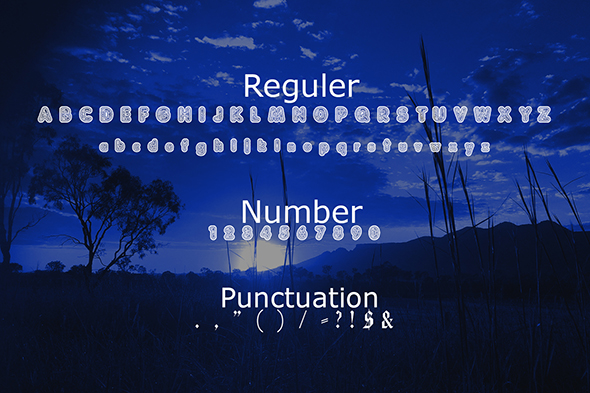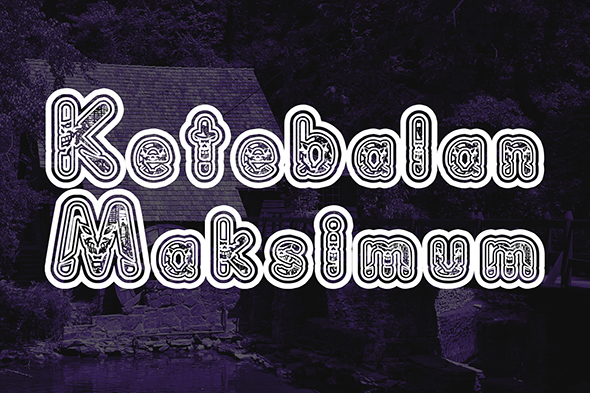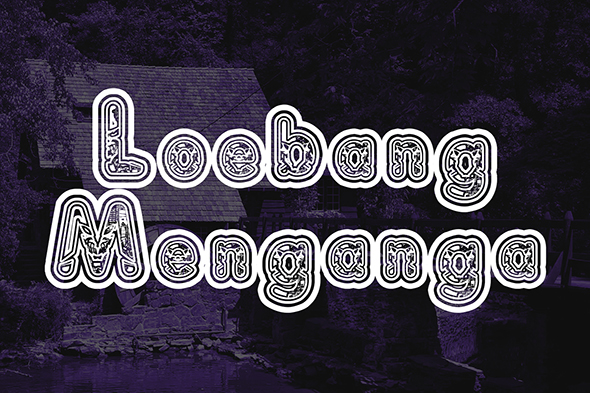
The Perfect Blend of Creativity and Style: Introducing the Boldlod Font
Remember that moment when you were brainstorming ideas for your next design project and you stumbled upon the perfect font? The one that elevates your entire concept and makes it stand out from the crowd? For many designers, this moment is what drives them to create something truly remarkable.
One font that has been making waves in the design community is the Boldlod Font. With its unique blend of bold lines and playful curves, it’s the perfect addition to any design project. Whether you’re creating headlines, book covers, posters, invitations, or anything in between, the Boldlod Font is sure to add a touch of creativity and style. For designers, having access to a versatile font like the Boldlod Font is invaluable, allowing them to experiment with new ideas and push the boundaries of what’s possible.
Boldlod Font Key Features
- Unique Characteristics: Boldlod Font features a unique blend of modern and vintage elements, with a bold and confident feel that sets it apart from other sans-serif fonts.
- Kerning and Ligatures: Includes advanced kerning and ligature pairs to ensure smooth and professional text rendering, even at small font sizes.
Boldlod Font Review
I’ve had the chance to play around with the Boldlod Font, and I must say it’s a mixed bag. Here’s what I think:
- The font’s bold weight is incredibly striking. It adds a level of sophistication to any design it’s used in.
- The font’s unique letterforms make it stand out from more generic sans-serif fonts.
- The font is highly customizable, allowing for fine-tuning of the spacing, kerning, and other details.
- The font’s overall legibility could be improved, especially at smaller font sizes.
- The font may not be suitable for extended blocks of text, as it can be tiring to read.
- The font’s unique letterforms may not be to everyone’s taste, which could limit its adoption.
Overall, I think the Boldlod Font is a solid choice for designers looking to add some visual interest to their projects. While it may not be perfect, it’s a great option for headings, titles, and other areas where a bold, statement font is needed. With some careful use and attention to legibility, I think the Boldlod Font could be a real showstopper.
Boldlod Font is ideal for headlines, titles, and headings that require a bold and eye-catching look. To get the most out of it, experiment with different font sizes, colors, and combinations to create a unique and visually appealing design.
- Logo designs and branding
- Print and digital advertisements